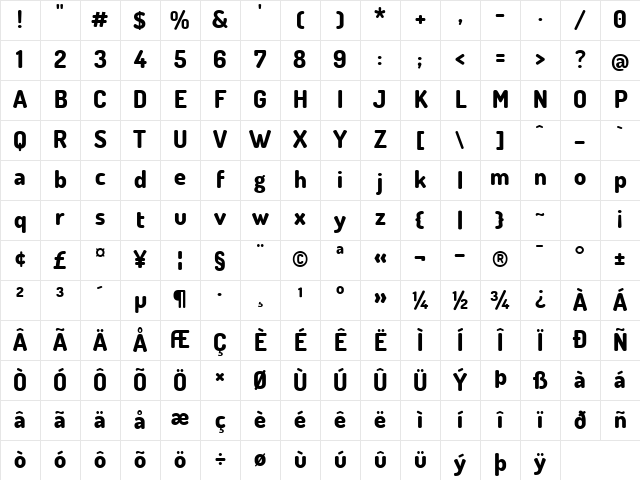
Terminal Dosis ExtraBold Free Font
Terminal Dosis ExtraBold
Foundry: EdgarTolentino, PabloImpallari, IginoMarini
Designer: EdgarTolentino, PabloImpallari, IginoMarini
Terminal Dosis Family
Design Context for Terminal Dosis
Terminal Dosis is a composed and adaptable typeface that performs quietly and consistently across a wide range of design contexts. Its bold stroke weight gives it real presence on the page.
Who designed the Terminal Dosis ExtraBold font?
This font was published by EdgarTolentino, PabloImpallari, IginoMarini. Check the technical specs section for copyright and designer details.